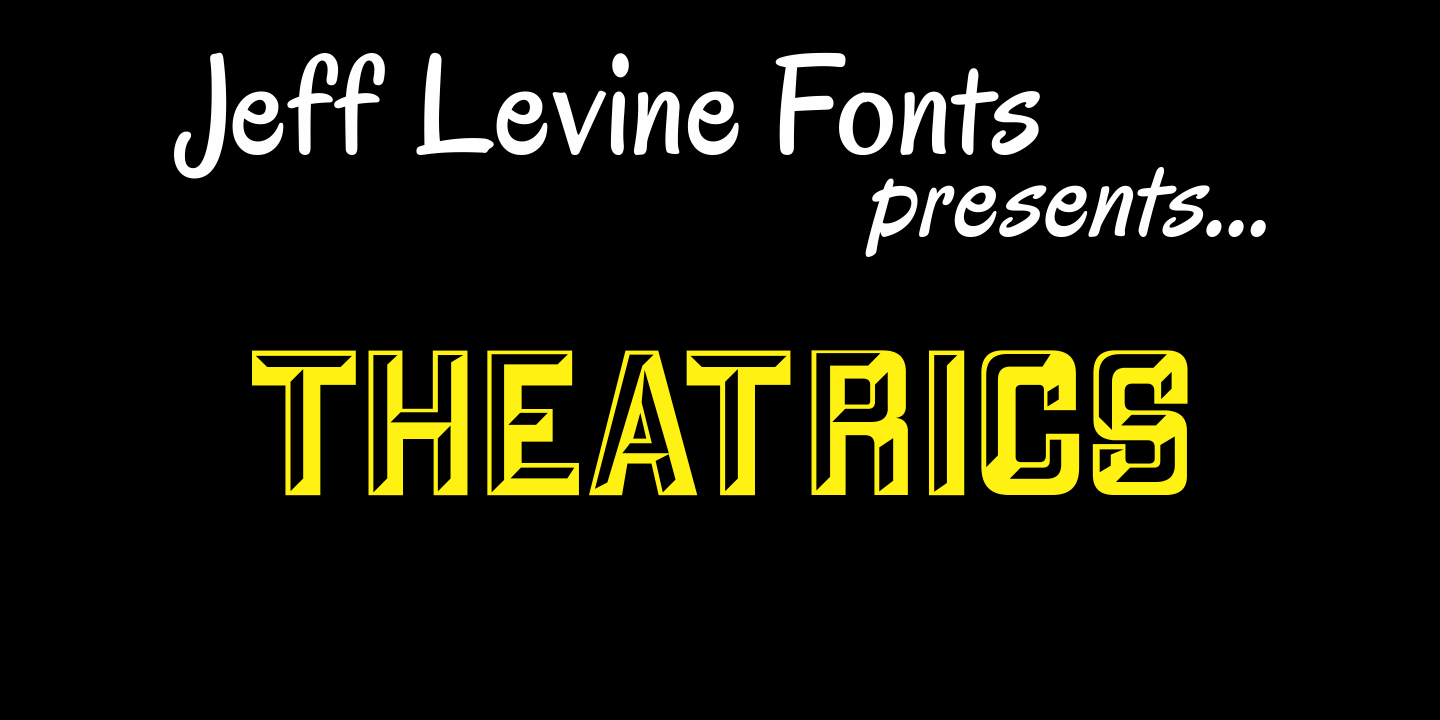
Theatrics
Theatrics JNL gives a rounded corner treatment to Prismatiq JNL; which in turn was modeled from lettering found in an early 1900s French lettering book displayed at an online image sharing site. Limited character set.
Theatrics JNL Regular by Jeff Levine Fonts